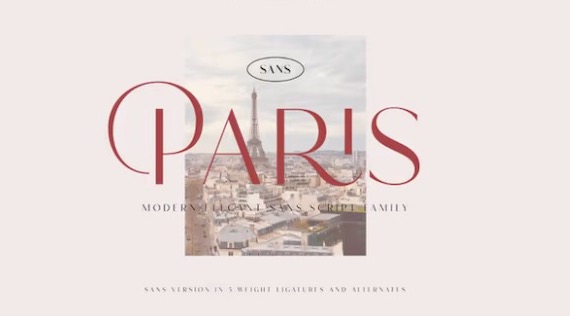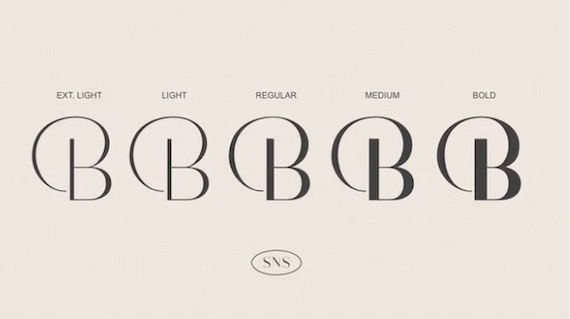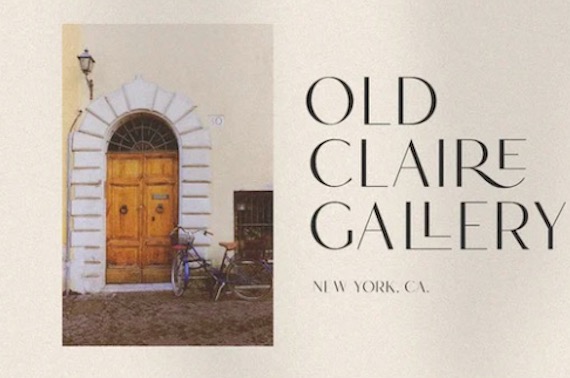
Hello Paris Sans, is an elegant luxury that was created by Angga Suwista and shared by Sans and Sons. This font family includes many different variants styles with unique and delicate looks.
Hello Paris Sans Serif Font
Designer Name: Angga Suwista
Publisher: Sans and Sons